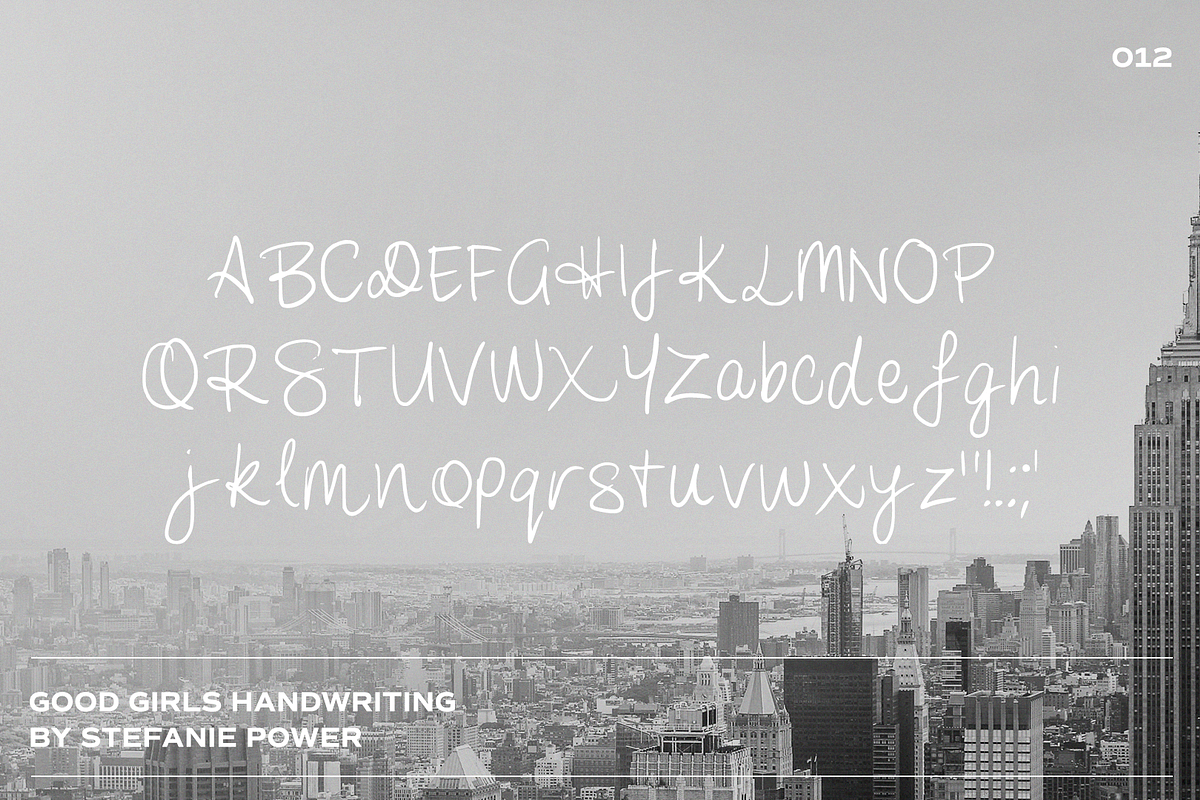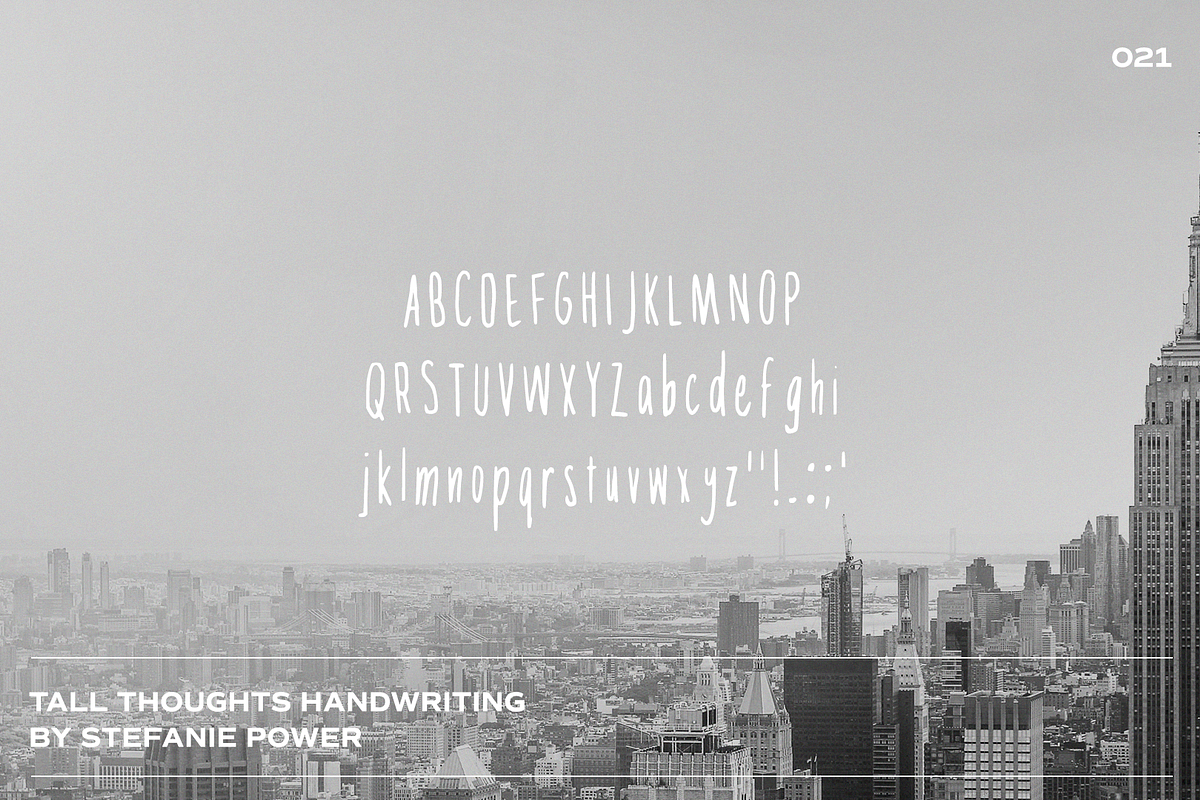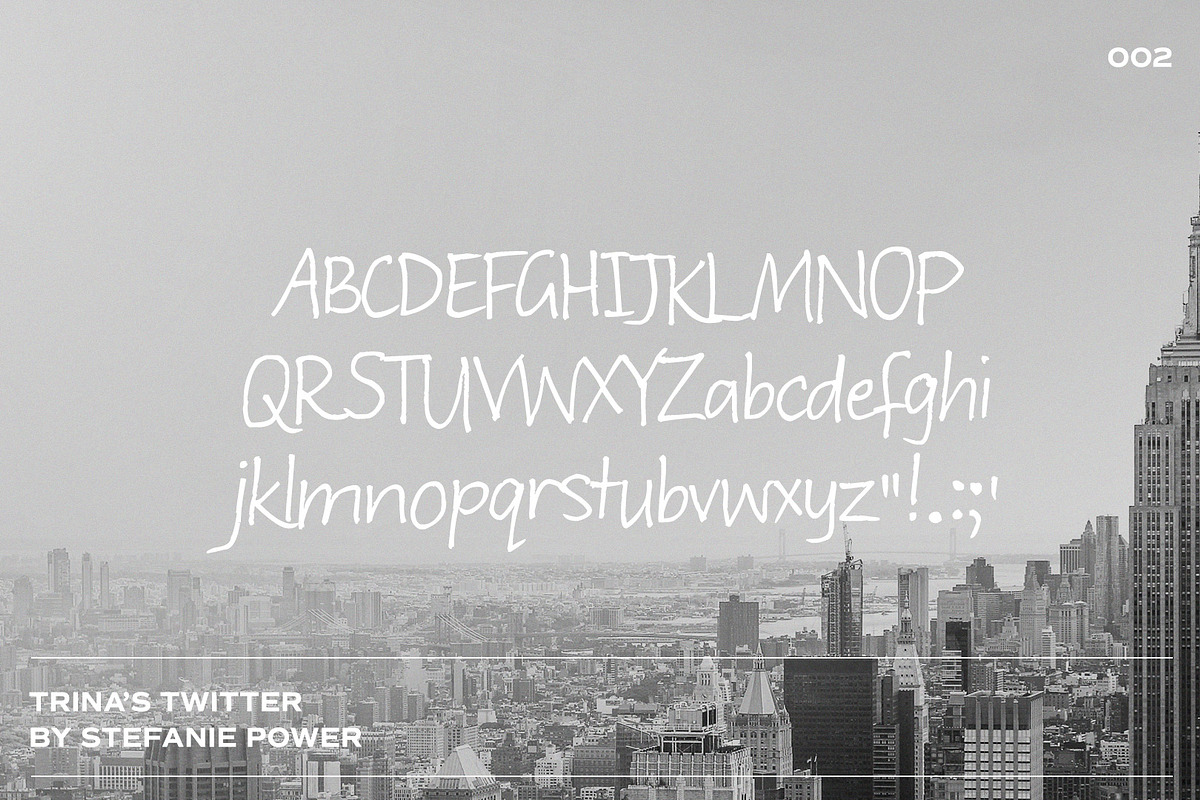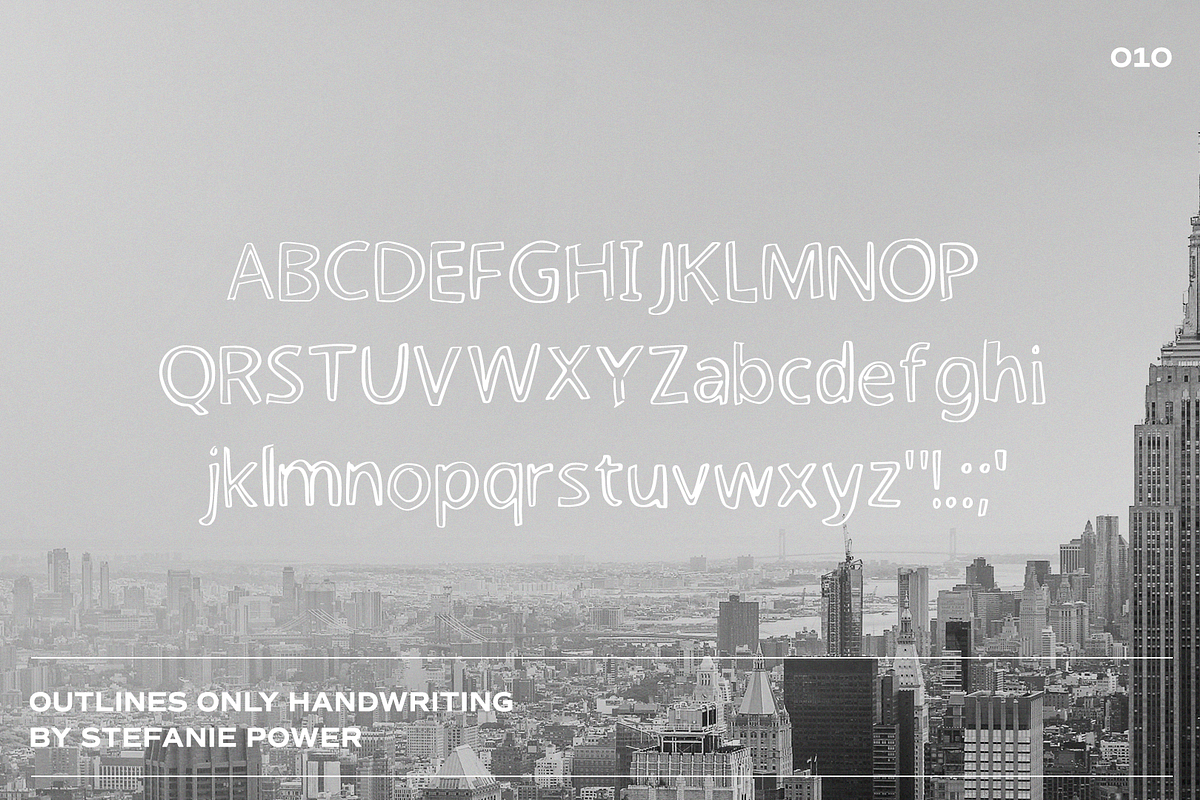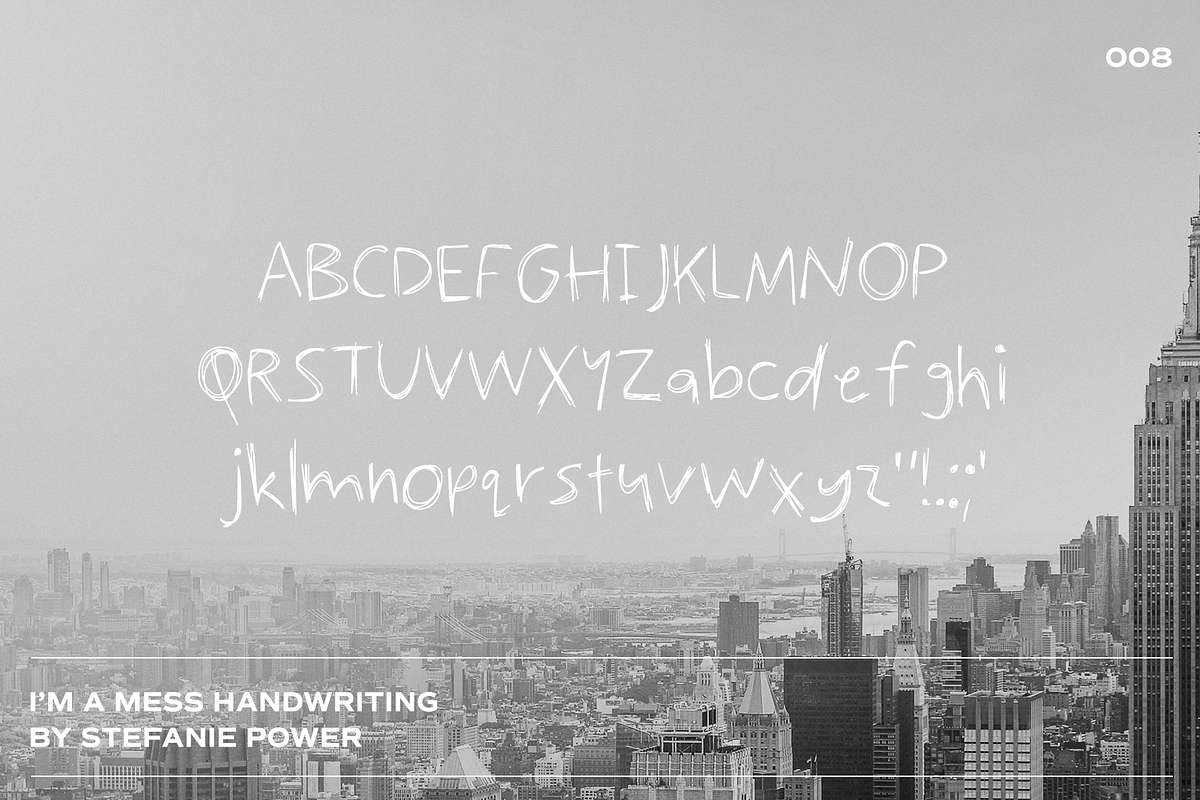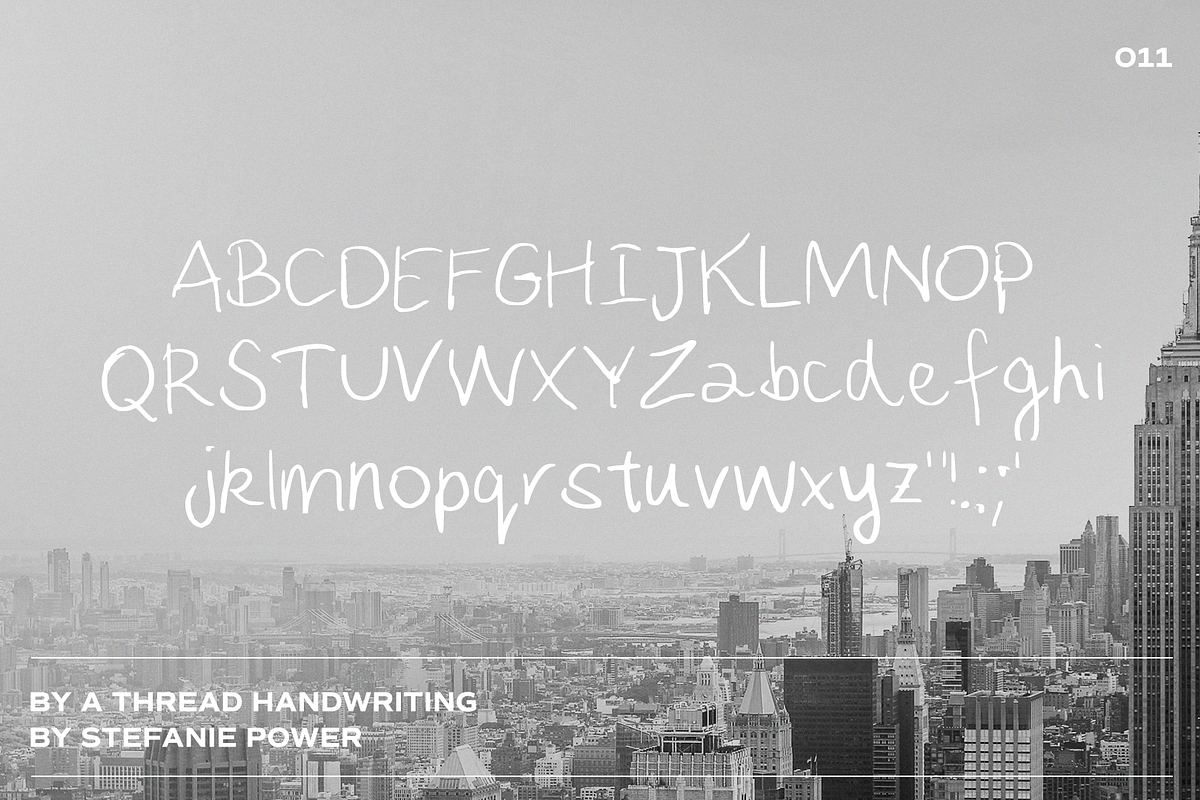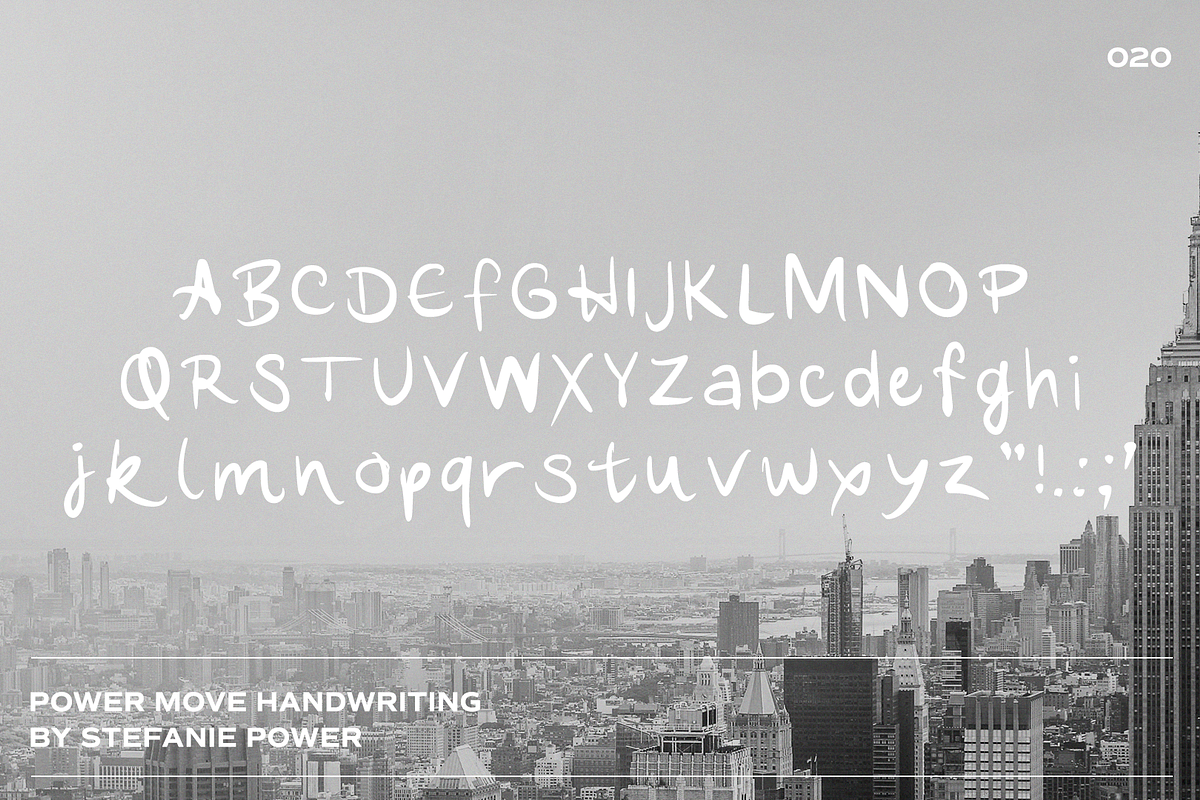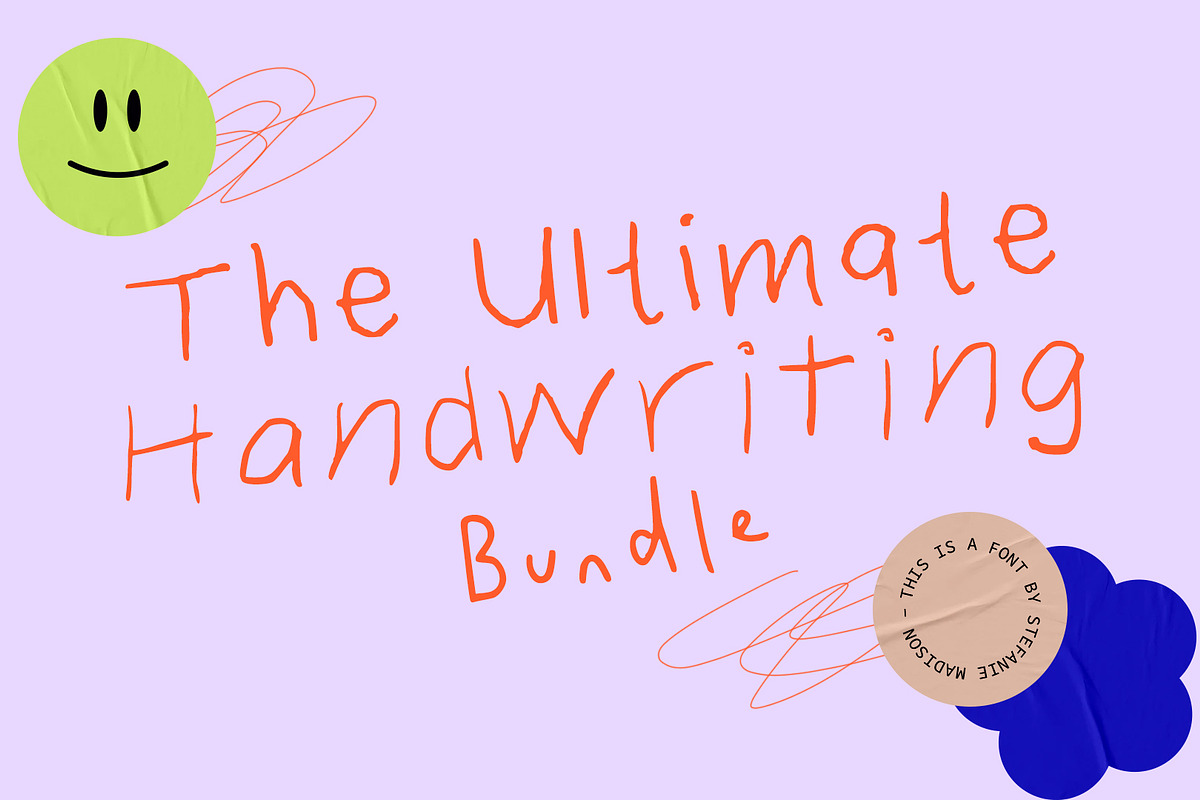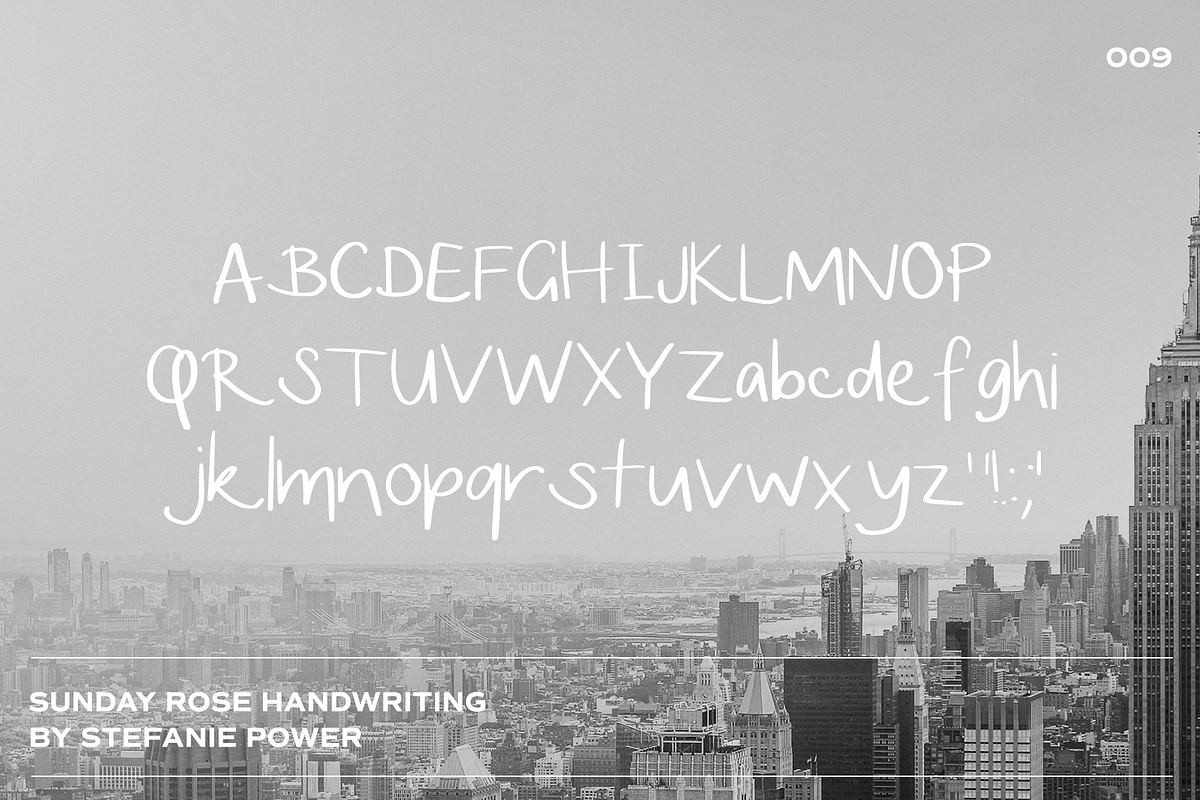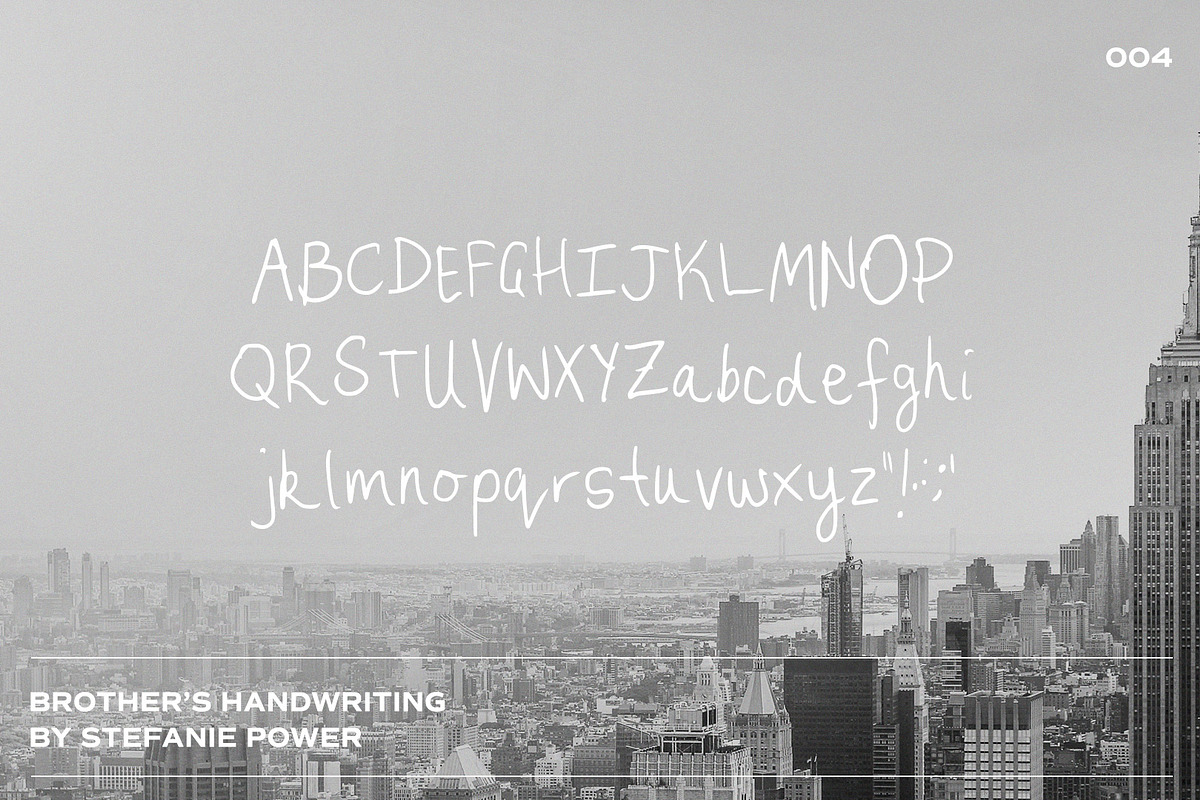
Introducing the Ultimate Handwriting Bundle - three realistic and authentic handwriting fonts. (MORE BEING ADDED SOON!)
The Ultimate Handwriting Font includes 26+ font files;
- Real Handwriting
- Trina's Twitter
- Kid's Handwriting
- Brother's handwriting
- My Dog Wrote This
- Sister's Handwriting
- i'm a mess
- Sunday Rose
- Outlines only
- by a thread
- Good Girls
- Neat Freak
- nosey
- She's Got Curves
- Fine and Dandy
- carefree
- Dad's Handwriting
- in a hurry
- Power Move
- TALL THOUGHTS
- Anarchy
- Country Girls
- mAnIaC
- Peachy
- Hello, my name is
- Sweet Thing
- Writer's Bloch
- Mum's Handwriting
- Saccharine
- To Whom It May Concern
- Stefanie Madison
- Apricot Skies